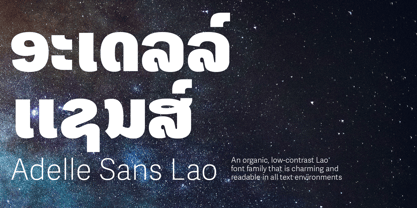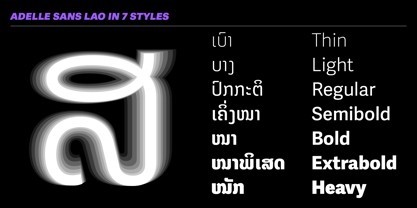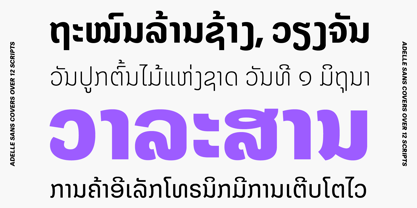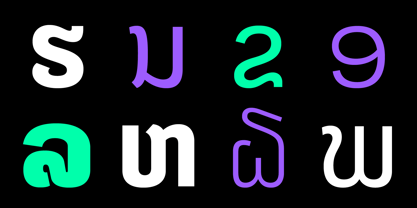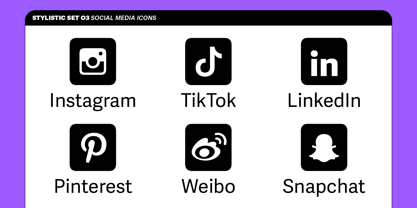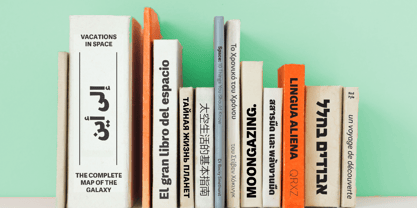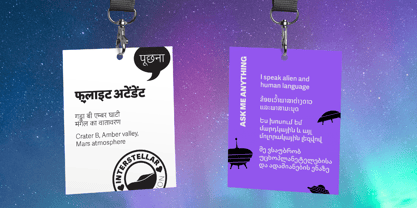
Adelle Sans Lao
by TypeTogether
The Adelle Sans Lao Font Family was designed by Veronika Burian, José Scaglione, Anuthin Wongsunkakon, Smich Smanloh and published by TypeTogether. Adelle Sans Lao contains 7 styles and family package options. More about this family
The original Adelle Sans, José Scaglione and Veronika Burian’s award-winning sans serif, provides a clean and spirited take on the traditional grotesque sans. The Lao design was created by Suppakit Chalermlarp and Anuthin Wongsunkakon in the same spirit of the full Adelle Sans family.
Adelle Sans Lao was expected to handle the most demanding editorial design problems. This led to the modern and simplified design that combines the lively character and unobtrusive appearance inherent to grotesque sans serifs to make it an utterly versatile tool for every imaginable situation. Whether for branding, signage, editorial, or advertising, the keyword behind Adelle Sans Lao’s use is flexibility.
Adelle Sans Lao is available in seven weights that capitalise on legibility and provide the designer a wide range of text emphasis within their layout. By creating weights from Thin to Heavy, the Lao is a perfect counterpart to the Latin with distinct individual and family advantages: space-saving design, higher legibility in small sizes, modern appeal, additional room for clear diacritics, and a similar texture to the rest of the enormous Adelle Sans family.
Rooted in the belief that broad language support is crucial to modern type design, Adelle Sans Lao is yet another push in TypeTogether’s ongoing multilingual efforts. Adding language support is not a simple act of matching geometry stroke for stroke; each script must harmonise with the others while still maintaining its own identity. Lao script’s complexity ranges from its dense shapes and combined marks to the fact that it can utilise loanwords, making it more complex than its Latin counterpart. The Adelle family’s naturally clean and spirited shapes lend themselves to an appropriate Lao translation of the Latin’s colour and feel, matching the overall functionality, purpose, and cultural awareness.
Across the entire multilingual family — Arabic, Armenian, Chinese, Cyrillic, Devanagari, Greek, Georgian, Hebrew, Latin, Latin Extended, Thai, and now Lao, with more on the way — each has been engineered to optically match the proportions of its counterparts. (Note: In addition to Lao, this font includes our full Latin character set which supports hundreds of languages. Please refer to the digital specimen for more information.) Adelle Sans Lao’s exhaustive character set and OpenType support delivers consistent, flexible, and personable results in digital and printed multilingual documents and multicultural branding.
Designers: Veronika Burian, José Scaglione, Anuthin Wongsunkakon, Smich Smanloh
Foundry: TypeTogether
Adelle Sans Lao